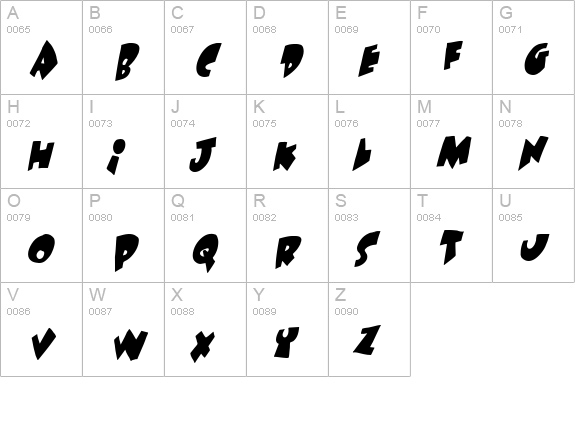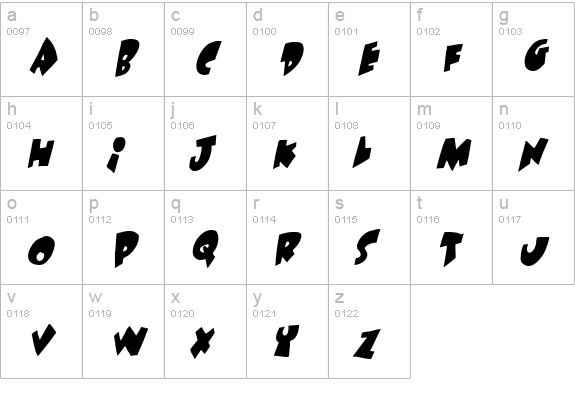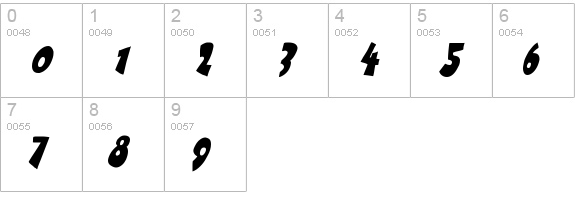
Introducing the stunning and captivating Under Attack Skew font! This extraordinary typeface is designed to make a bold statement and leave a lasting impression. With its unique and edgy skewed style, it adds a touch of excitement and dynamism to any project. Under Attack Skew font is perfect for those looking to add a rebellious and rebellious touch to their designs. Whether you're working on a poster, logo, or branding project, this font will effortlessly grab attention and convey a sense of energy and urgency. One of the best things about Under Attack Skew font is that it is freely available to download at FontsMarket.com. Yes, you heard it right, completely free! This means that you can enjoy the versatility and creativity of this font without any cost. It's a fantastic opportunity to elevate your designs without breaking the bank. With Under Attack Skew font, you have the freedom to explore various design possibilities and unleash your creativity. The distorted and slanted letterforms give your text a distinctive and mesmerizing look, making it perfect for those who dare to be different. This font is meticulously crafted with attention to detail, ensuring that each character is visually captivating. From its sharp angles to its bold strokes, Under Attack Skew font exudes strength and resilience. So, if you're ready to make a powerful impact with your designs, don't miss out on the opportunity to download Under Attack Skew font for free at FontsMarket.com. It's time to add a touch of rebellion and excitement to your projects and let your creativity shine.